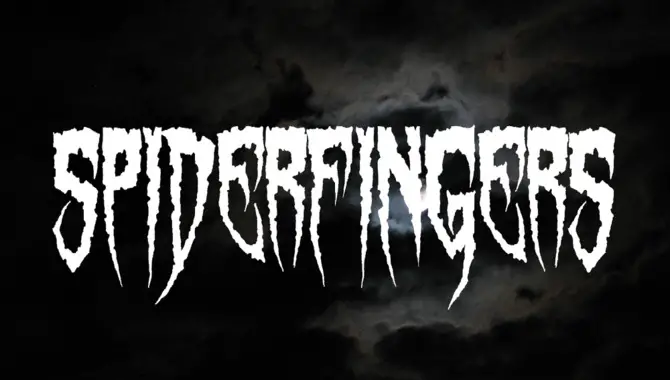
Halloween fonts can add a spooky and festive touch to your Word documents. Whether creating invitations for a Halloween party or designing flyers for a haunted house event, there are plenty of Halloween-themed fonts to choose from.
Get ready to add a spooky twist to your designs this Halloween season! Here we will dive into the world of Halloween font word inspiration that will make your designs stand out from the crowd. Whether you’re looking to create a creepy poster, design an eerie invitation, or craft a haunting social media graphic, we’ve got you covered. Join us as we dive deeply into the world of Halloween typography and get ready to trick or treat your eyes.
Double Feature: Exploring Halloween Font Word Inspiration
Different font styles can add a spooky and fun touch to your Halloween designs. Gothic fonts create a creepy atmosphere, while playful fonts add a whimsical feel. Incorporating Halloween-themed words like “boo,” “witch,” and “candy” can enhance the holiday spirit.
Experiment with different font styles and sizes to create visually appealing Halloween typography. Mixing and matching fonts is a great way to create unique and eye-catching designs with a spooky feel. From movie posters to Halloween party invitations, Halloween fonts are great for adding a touch of fright to your graphic design projects. Here are some Halloween font word.
Buffied: Adding Halloween Vibes To Your Designs With A Font
Adding a font to your Halloween designs can elevate the spooky vibes and create a festive atmosphere. Buffied, a Halloween-inspired font, showcases creepy and fun elements like bats and pumpkins. It’s an excellent choice for creating Halloween-themed invitations, posters, or social media graphics that capture the essence of the holiday.
With various colors, sizes, and effects, you can make your text stand out creatively and visually. Don’t miss the opportunity to experiment with Buffied to achieve that perfect Halloween aesthetic.
Halloween Spider: Weaving A Web Of Font Inspiration For Halloween
Choosing the right font can add a spooky and festive touch to your Halloween designs. Fonts inspired by spiders, such as the Halloween Spider font, can create a creepy and eerie atmosphere, making them a great choice for Halloween-themed projects.
These fonts often incorporate cobwebs, bats, pumpkins, and skulls, giving your designs a spooky feel. By using different font styles, such as bold or handwritten fonts, you can convey different moods and emotions in your Halloween designs.
Experiment with different colors and effects, like a gradient or drop shadow, to enhance the Halloween vibe further. Get inspired and unleash your creativity with the Halloween Spider font.
Fiddums Family: A Quirky Font For Halloween Design Projects
Make your Halloween design projects stand out with Fiddums Family: a unique and quirky font that brings a festive touch to your creations. This playful and slightly spooky typeface is perfect for invitations, posters, and party decorations.
Its uneven letter shapes and exaggerated serifs add a fun and whimsical touch to any project. Pair it with other Halloween-themed elements like bats, pumpkins, or witches to enhance the overall design. Embrace the spooky feel with Fiddums Family, and let your creativity shine this Halloween.
Vintage Halloween: Bringing Nostalgic Vibes With A Halloween Font
Vintage Halloween fonts are great for bringing a nostalgic vibe to your Halloween designs. Inspired by traditional Halloween celebrations, these fonts incorporate whimsical and spooky elements like bats, witches, and pumpkins.
They add a touch of old-fashioned charm and create the perfect atmosphere for your projects. Whether you’re designing invitations, posters, or decorations, vintage Halloween fonts are a great way to capture the essence of this holiday. Consider the overall theme and mood you want to convey when choosing a font, and pair it with appropriate words or phrases to enhance the Halloween feel.
Freaky Halloween: Unleashing Your Creativity With A Scary Font
Unleash your creativity and add a spooky feel to your Halloween designs with various fonts. Using a scary font is a great choice for Halloween-themed projects, such as invitations, posters, and decorations. Plenty of options are available whether you prefer creepy and gothic or playful and whimsical styles. Experiment with different fonts to find the perfect one that matches your creative vision. Prepare for a truly freaky Halloween experience that will leave a lasting impression.
Wild Wood: Getting Lost In A Haunted Forest Of Typography
Embrace the spooky feel of Wild Wood, a Halloween font that will transport you to a haunted forest of typography. With its twisted tree branch-like design, this font adds an eerie and mysterious atmosphere to any Halloween project.
Whether you’re creating invitations for a haunted house party or designing spooky posters, Wild Wood is a great choice. Its unique and captivating style will leave a lasting impression on your audience. Step into the world of Wild Wood and unleash your creativity this Halloween.